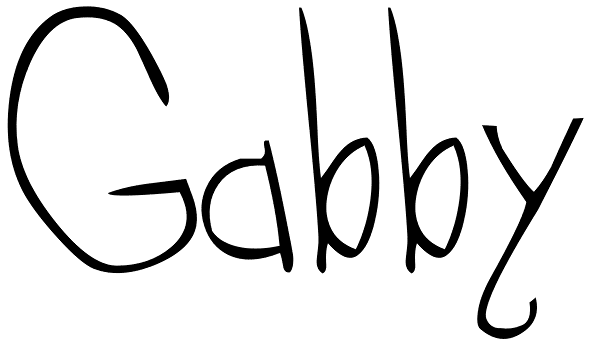
Gabby
Gabby is an authentic handwriting of a First Grader. I took all the papers from her backpack during her first grade year and scanned in various letters, cleaned them up, and turned them into a font. This font is how I captured memories of my...